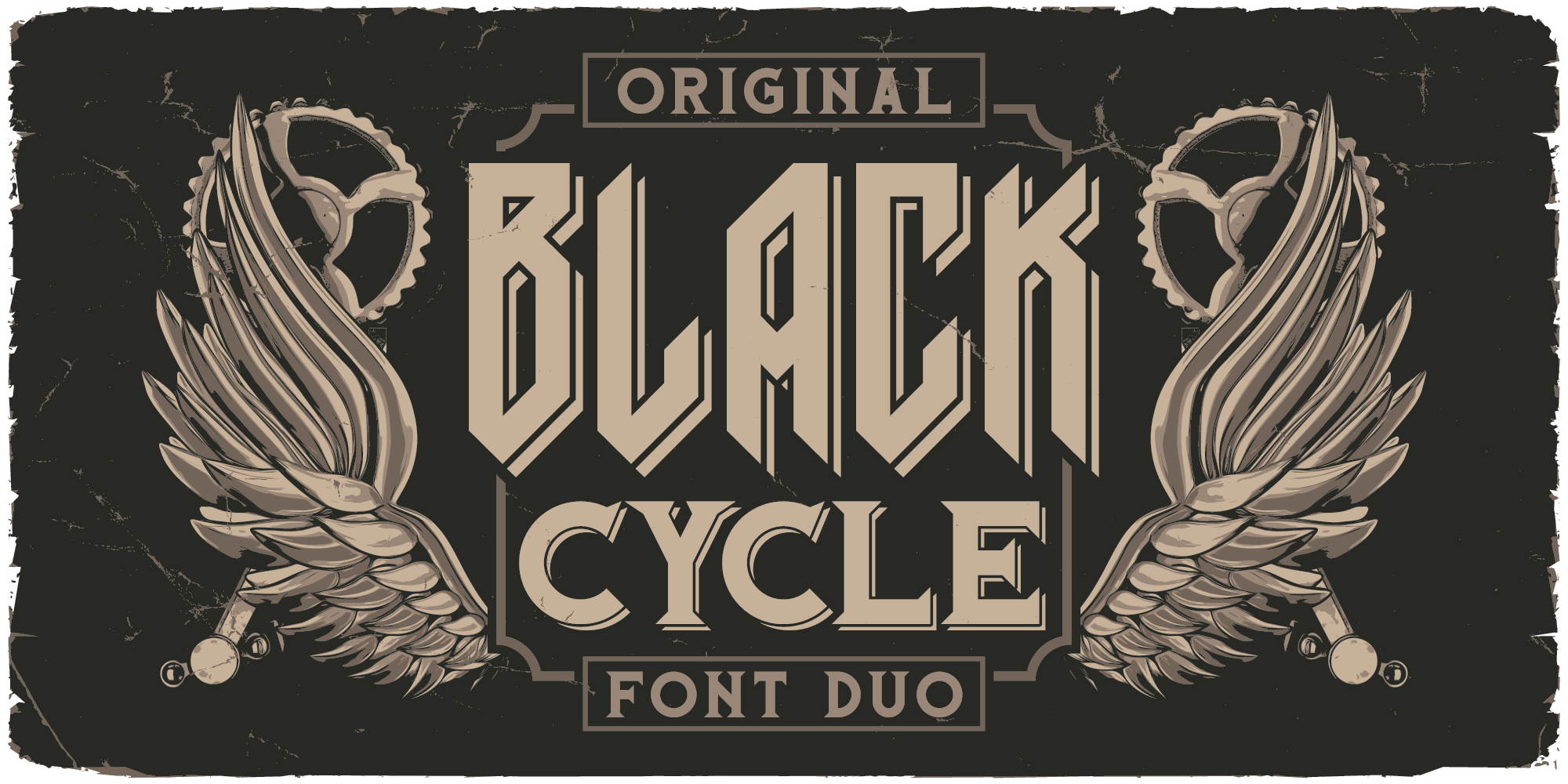
The Black Cycle 2 Font excels in various design applications including dark motorcycle club branding, intensive cycling event marketing, black metal bike shop communications, extreme cycling gear packaging, underground bike culture identities, dark athletic training materials, intense cycling competition promotions, black cycling apparel designs, heavy-duty bike equipment signage, and powerful cycling projects that demand dark intensity and cycling sophistication.
What makes the Black Cycle 2 Font exciting is its intense embodiment of dark cycling culture and powerful bike energy through letterforms that capture the essence of serious cycling dedication and the raw intensity of committed bike enthusiasts. This typeface demonstrates exceptional power through carefully engineered characters that suggest the relentless rotation of bike wheels, the determined push of intense cycling training, and the unwavering commitment that defines authentic cycling culture and serious bike performance. The font's cycling personality makes it perfect for bike shops and cycling organizations seeking to communicate cycling authenticity, intense dedication, and the kind of powerful energy that creates legendary cycling experiences through typography that literally cycles with dark intensity.
The Black Cycle 2 Font family typically includes powerful weight variations that enhance the cycling aesthetic, featuring intense styling options and extended character sets optimized for cycling communications and bike culture applications. These family options often include cycle-inspired alternates, bike symbols, and dark decorative elements that provide designers with comprehensive tools for creating authentically cycling typography that celebrates bike culture while maintaining contemporary design appeal and cycling credibility.
Cycling professionals and bike culture organizations consistently choose Black Cycle 2 Font Free Download for projects requiring typography that communicates cycling authenticity and dark intensity. This typeface delivers exceptional performance in cycling marketing, bike branding, and intense communications where establishing credibility and creating powerful cycling atmosphere is essential for bike enthusiast engagement. The font's cycle character makes it particularly effective for competition and gear applications. Download Black Cycle 2 Font Free Download today to access this intensely powerful typeface that transforms cycling communications with its dark elegance and cycling sophistication, creating compelling bike experiences that honor the magnificent dedication of cycling culture while celebrating the intense commitment that defines authentic bike enthusiasm and cycling excellence.